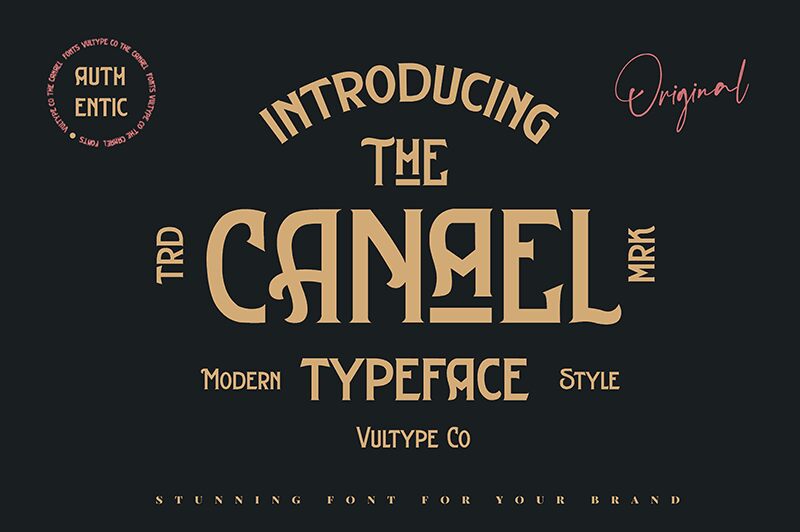
Canael font, crafted by Vultype, is a striking display typeface with a retro flair that's perfect for capturing attention. This condensed font features bold curves and an elegant design that evokes nostalgia while remaining fresh and modern. Its distinct characteristics make it ideal for branding projects, vintage-themed designs, and creative headlines that need to stand out.
With its unique aesthetic appeal, Canael font shines in posters, logos, and editorial layouts where visual impact is paramount. The combination of its retro style with contemporary elegance allows it to seamlessly blend into various design contexts. Whether you're looking to add a touch of classic charm or create an unforgettable statement piece, Canael is your go-to choice.